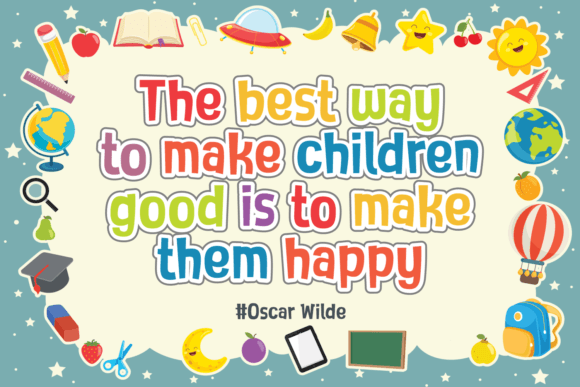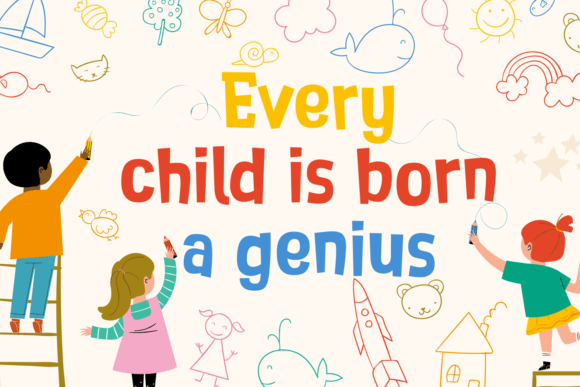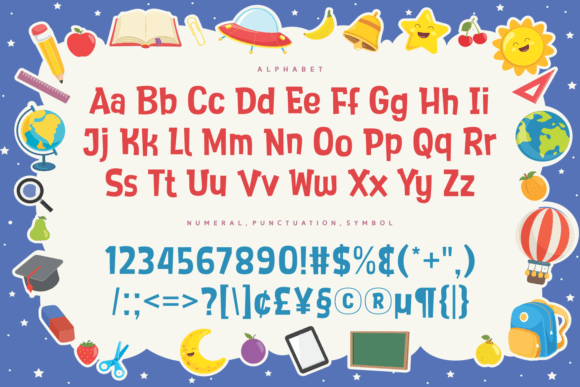
Introduction to Childhood Dreams Font
Childhood Dreams is a sweet and friendly display font.
These bold and quirky characters are just what you need for cheerful, childish typography Use this lovely font for posters, headlines, websites, book and album covers, banners, fabric prints, and many more.
Key Features of Childhood Dreams Font
Why Choose Childhood Dreams Font?